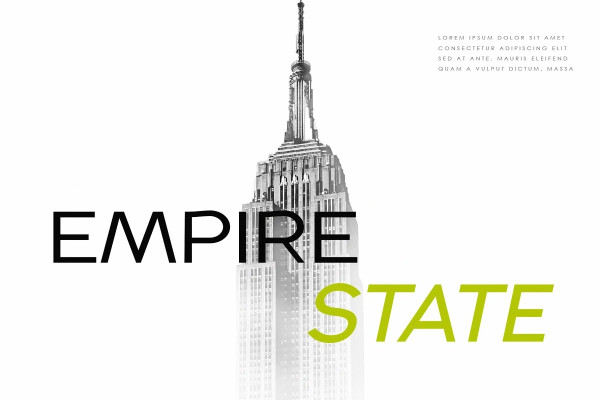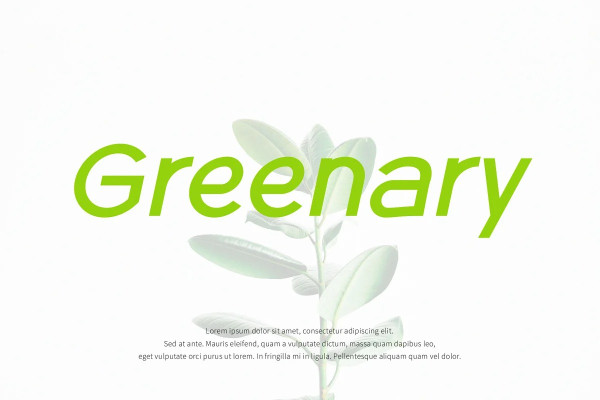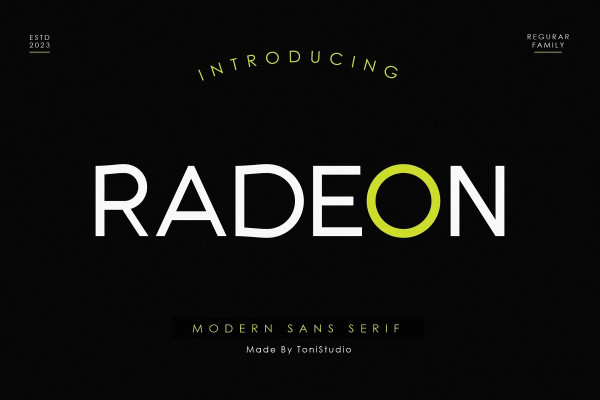
Radeon Font
Radeon Font is a geometric sans serif typeface efficiently created from simple straight lines and circles with a slight indentation around the edges to be a versatile type in a variety of applications, such as headlines or branding. RADEON consists of 8 weights from Hairline to Black in matching italics.